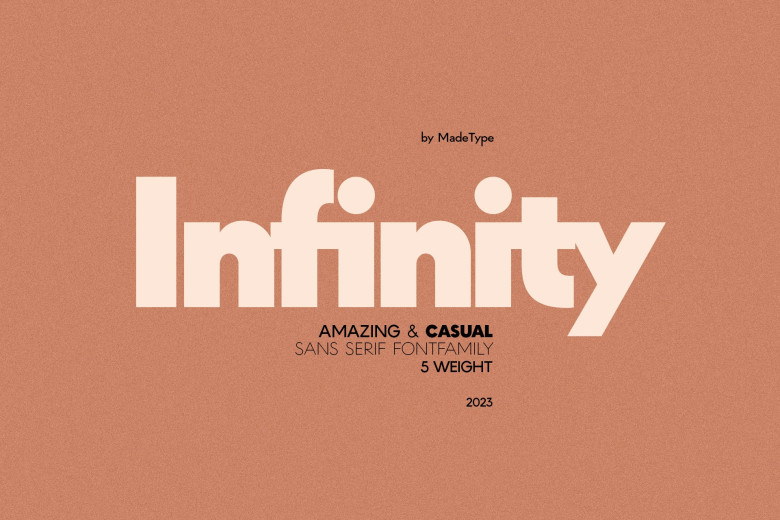
Made Infinity Font
The Made Infinity series includes light, regular and bold weights. Its subtlety has an anti-classical texture which makes it easy to satisfy a variety of layout needs in both spoken and written forms, whether casual or elegant. This typeface is an ideal choice for any publication that requires an emphasis on our sophisticated sensibility and taste (i.e. luxury branding, high fashion or editorial publications). It’s also perfect for websites and digital interfaces that require a modern clean look.
Made Infinity Sans Serif Font